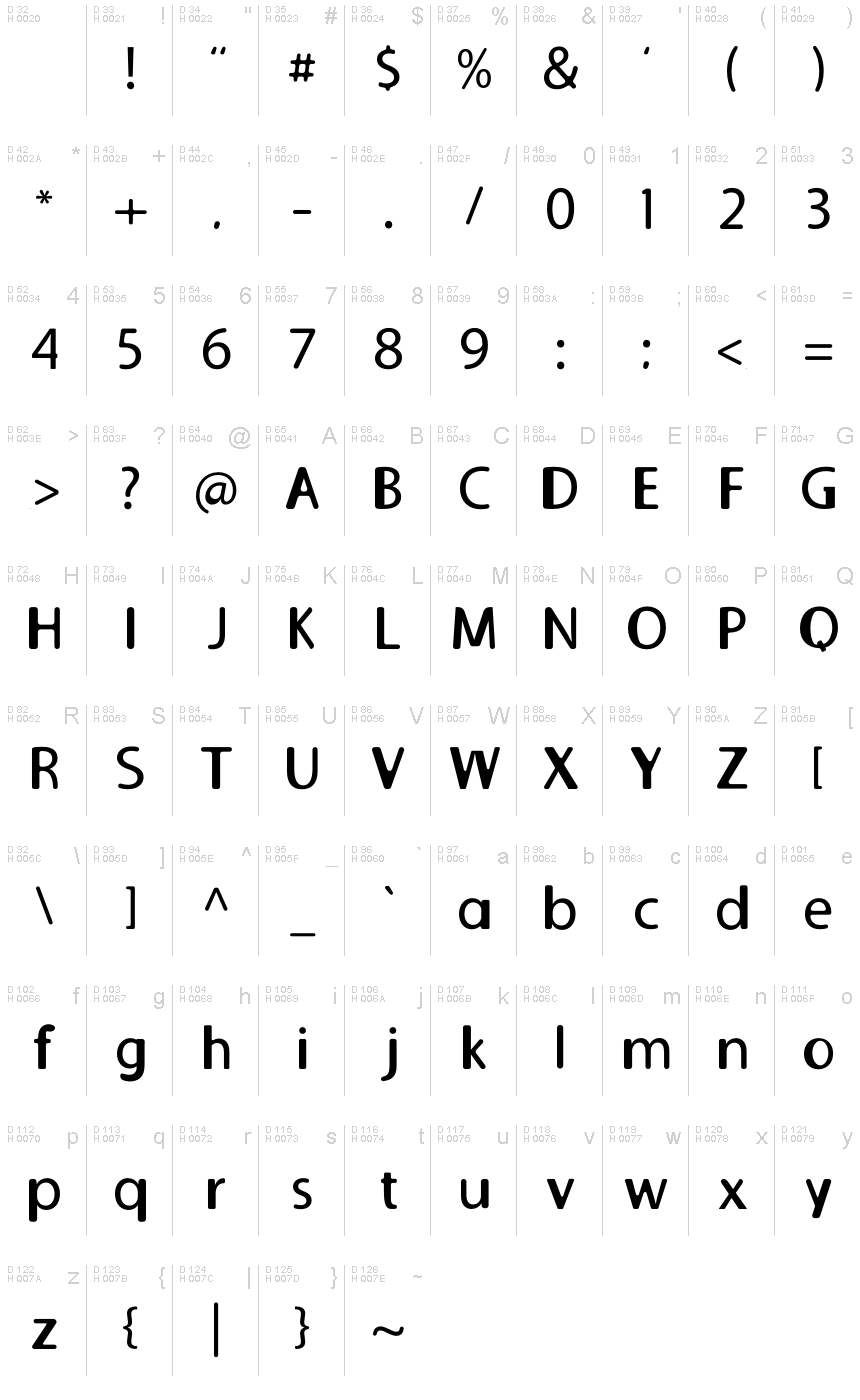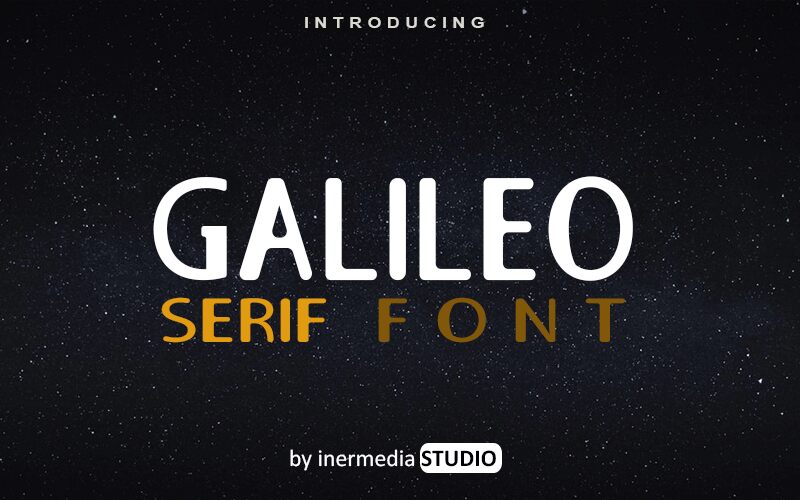
Galileo-Serif
Galileo-Serif, a captivating font crafted by the talented minds at Inermedia Studio, commands attention with its striking visual presence. This font's bold, expansive letterforms exude a sense of authority and grandeur, making it an exceptional choice for editorial design, headlines, or any application that demands a powerful typographic statement. The font's strong, confident strokes convey a timeless elegance, blending classic serif influences with a modern, assertive edge.
Galileo-Serif's versatility extends beyond its visual allure, as its robust structure and legibility lend themselves well to a diverse range of design scenarios. From editorial layouts to branding projects, this font has the ability to elevate any composition, adding a touch of sophistication and memorable flair. Galileo-Serif is a typographic gem, a harmonious balance of tradition and innovation that promises to captivate designers and audiences alike.